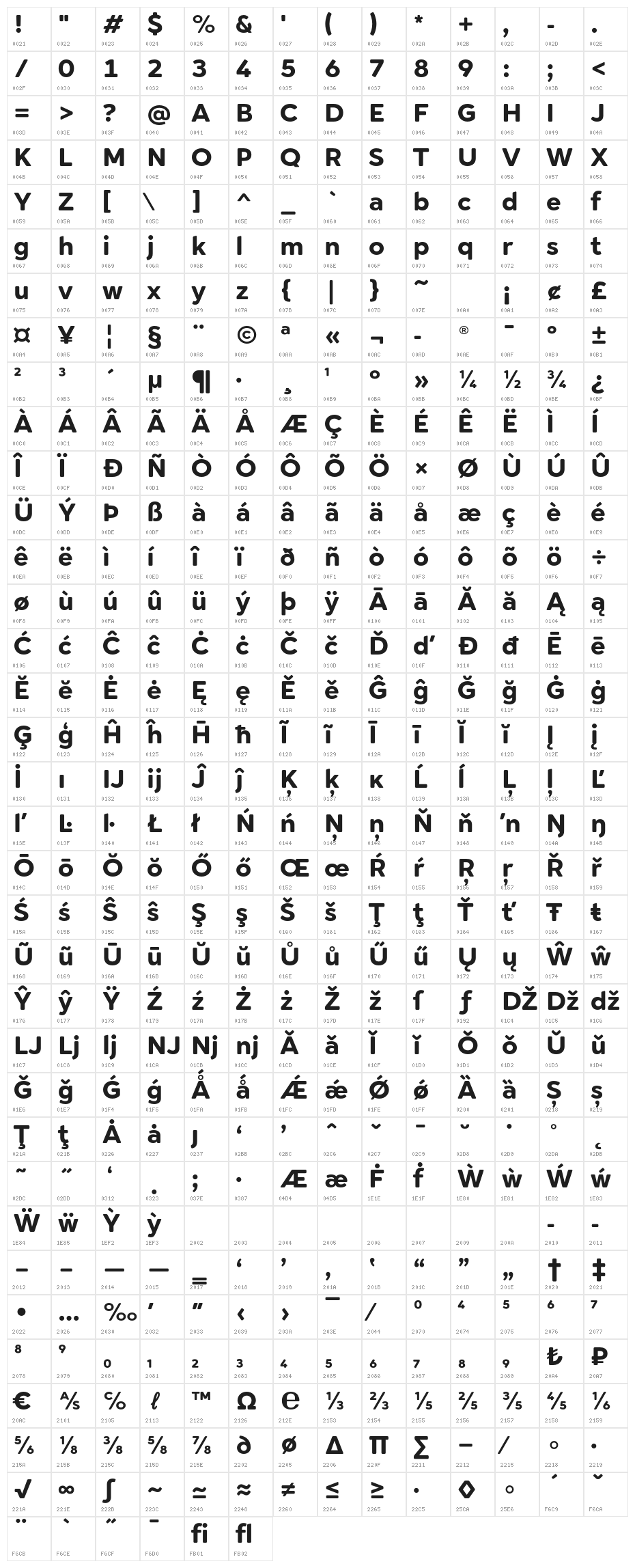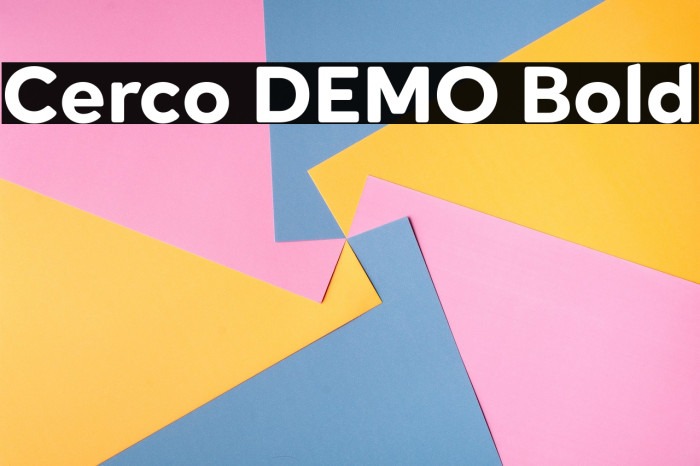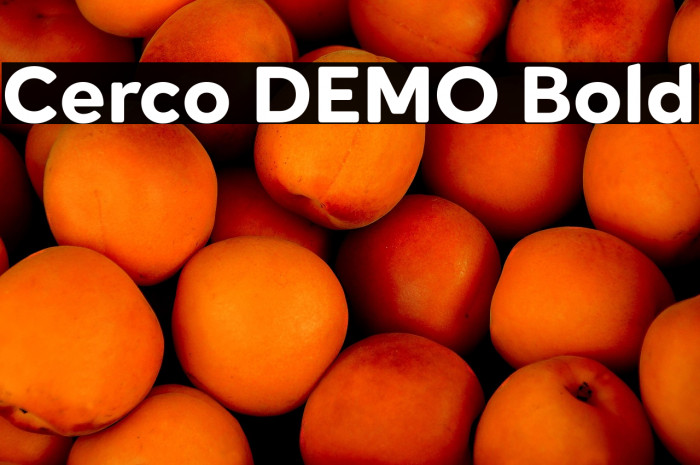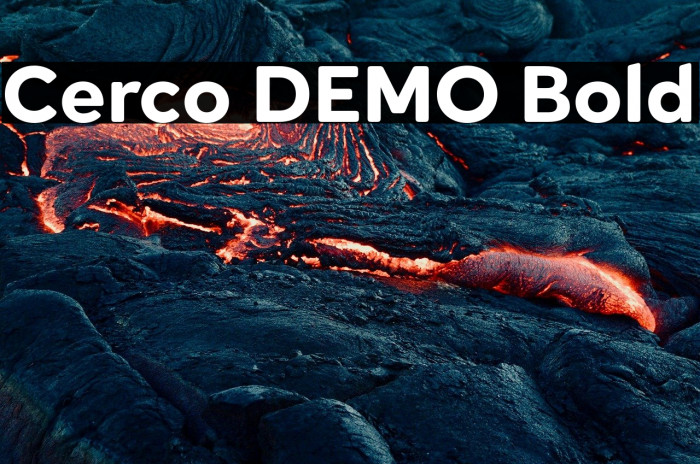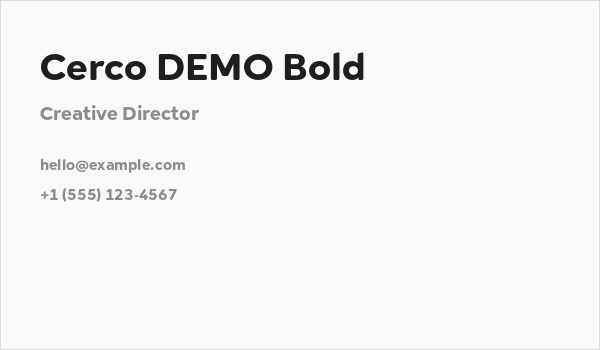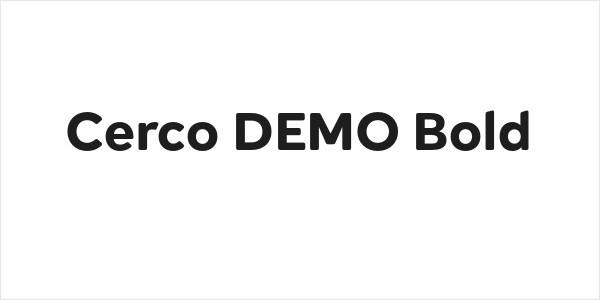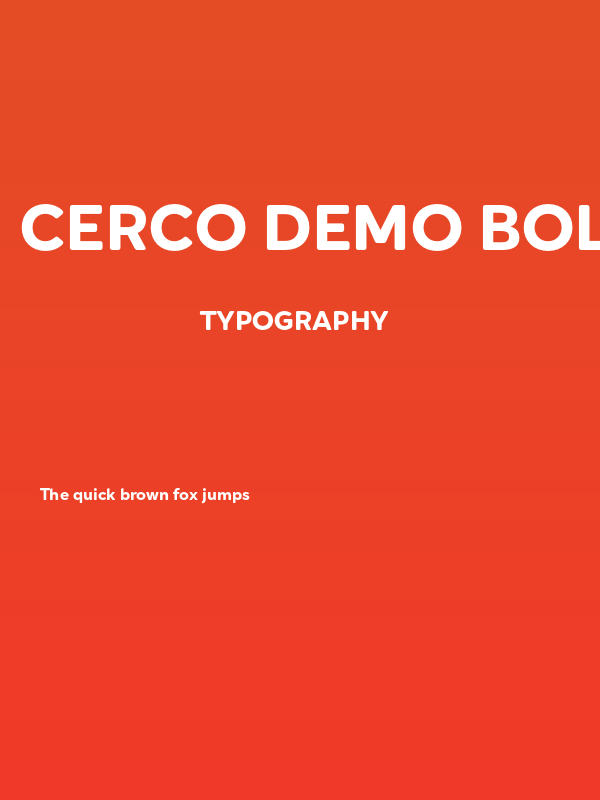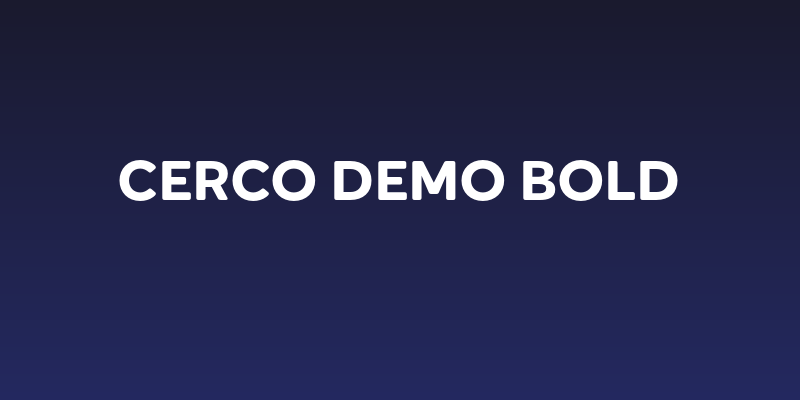
Cerco DEMO Bold Font
Cerco DEMO Bold Description
This font features a bold and modern sans-serif style with clean, geometric lines. The characters are evenly weighted, providing a strong and confident appearance. The uppercase letters are uniform in height, while the lowercase letters maintain a consistent baseline, enhancing readability. The numerals are clear and distinct, making them ideal for both display and text purposes. Special characters are well-defined, adding versatility for various design needs. The overall aesthetic is sleek and contemporary, suitable for a wide range of applications.
| Proposed Projects | Ideal for branding, advertising, headlines, and digital content where a strong, modern presence is desired. |